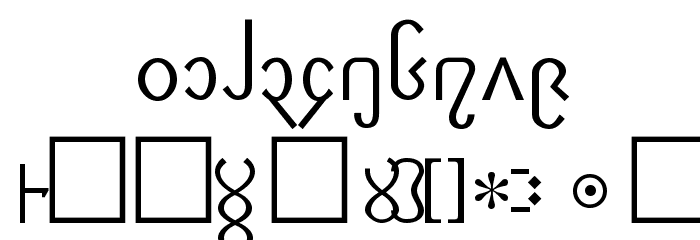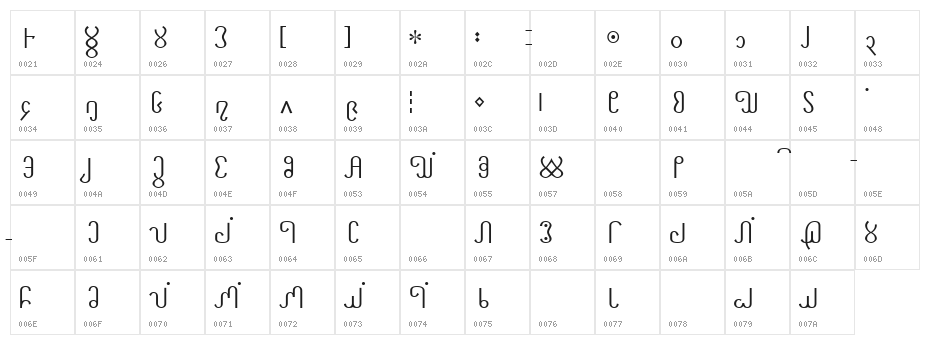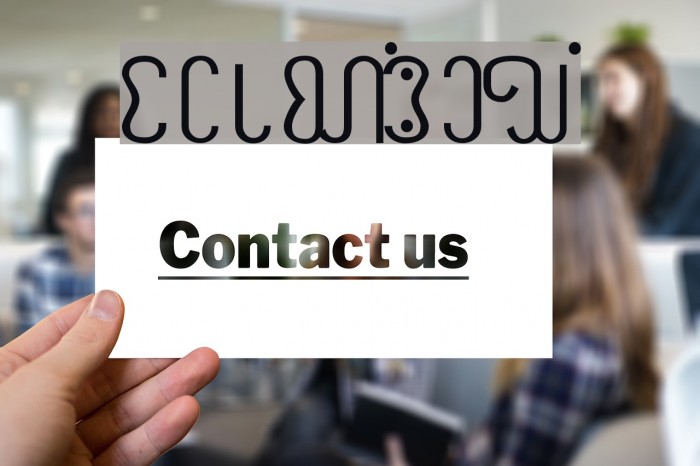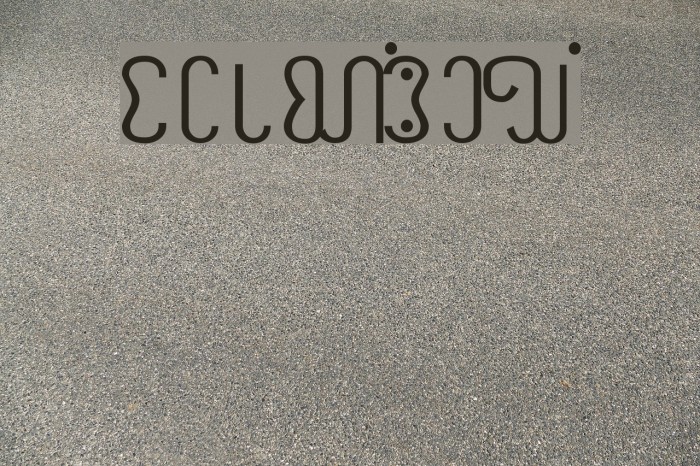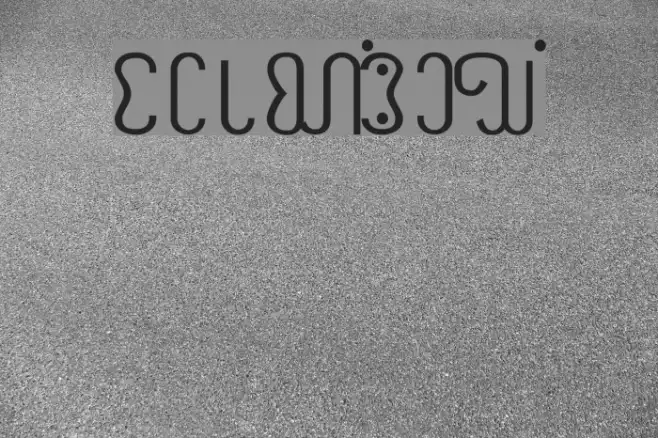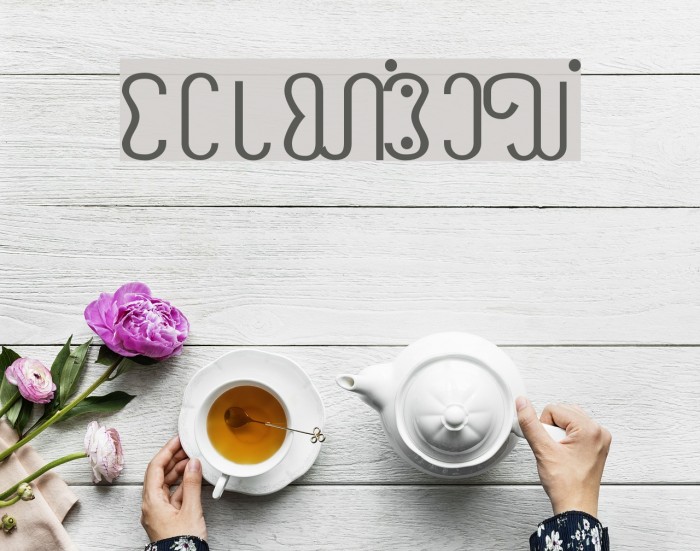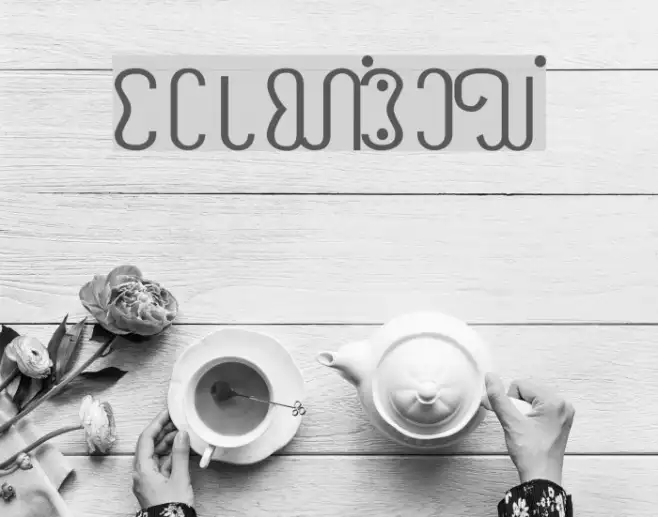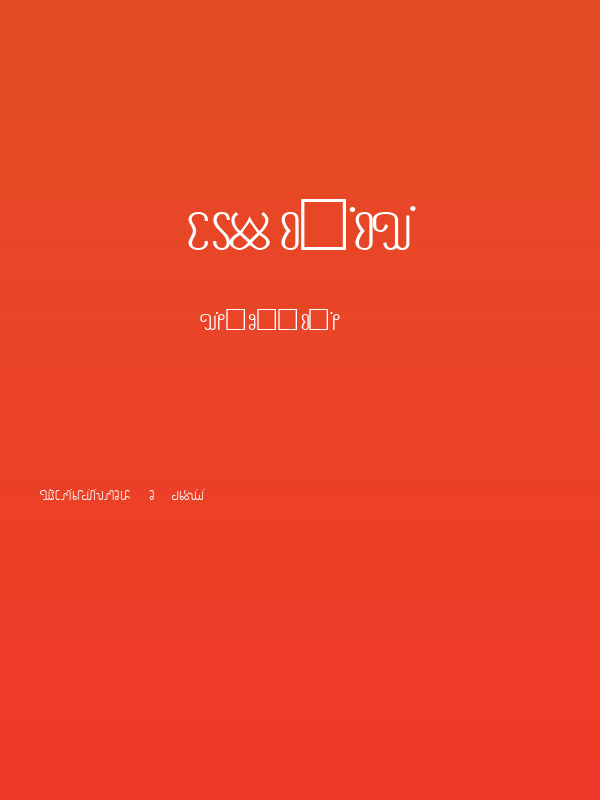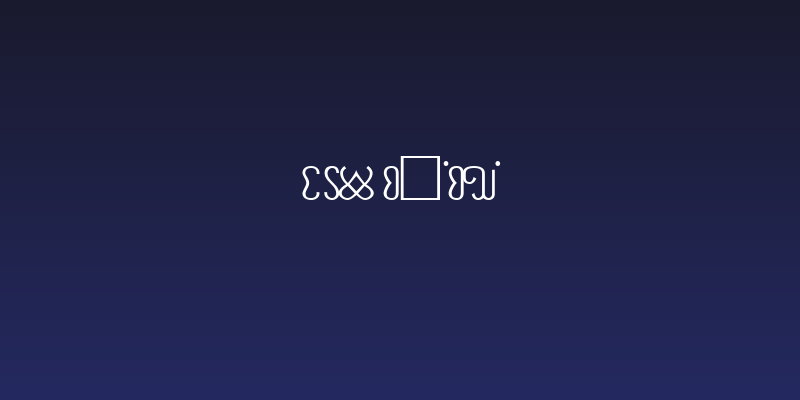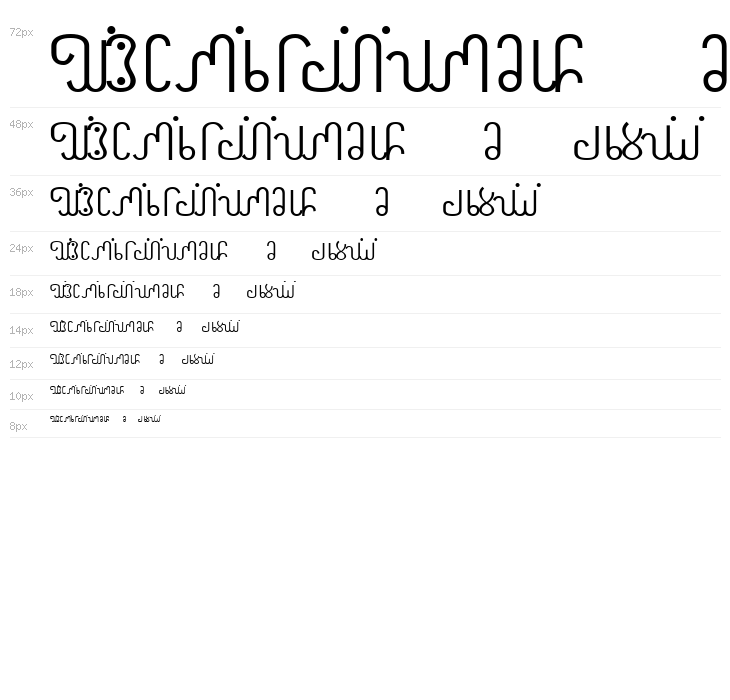
NewAkhaT Font
NewAkhaT Description
A geometric, monolinear font with rounded terminals and a modular structure, featuring consistent stroke thickness and a playful, modern appearance. The characters are constructed with a mix of straight lines and smooth curves, giving it a unique and decorative look.
| Use Case | Headlines, Logos, Posters, Display text |
| Proposed Projects | Posters, branding, creative headlines, display graphics, packaging, event invitations. |